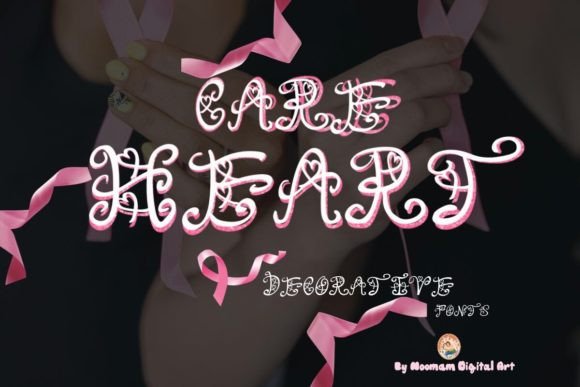
Care Heart Font: The Motivation to Fight with a Woman’s Spirit
The Care Heart font is a unique and inspiring typeface that embodies the strength and resilience of a woman’s spirit. This font is designed to motivate and empower individuals to face challenges with courage and determination. In this article, we will explore the features and benefits of the Care Heart font, and how it can be used in various design projects to convey a sense of care, compassion, and motivation.
What is Care Heart Font?
Care Heart font is a carefully crafted typeface that combines elegance and sophistication with a touch of warmth and empathy. The font features a distinctive heart-shaped design element that adds a personal and emotional touch to any text. The Care Heart font is designed to be versatile and can be used in a wide range of applications, from professional branding and marketing materials to personal projects and social media posts.
The Inspiration Behind Care Heart Font
The Care Heart font is inspired by the strength and resilience of women who face challenges with courage and determination. The font is designed to be a symbol of motivation and empowerment, encouraging individuals to fight for their goals and aspirations. The Care Heart font is a tribute to the power of the human spirit and the importance of care, compassion, and empathy in our lives.
Features of Care Heart Font
The Care Heart font features a range of unique and attractive characteristics, including:
- Unique Heart-Shaped Design Element: The Care Heart font features a distinctive heart-shaped design element that adds a personal and emotional touch to any text.
- Elegant and Sophisticated: The font has an elegant and sophisticated appearance, making it suitable for professional-looking projects such as branding designs, labels, and business cards.
- Warm and Empathetic: The Care Heart font has a warm and empathetic feel, making it perfect for designs that require a personal touch, such as social media posts, invitations, and special occasions cards.
- Versatile: The Care Heart font is highly versatile and can be used in a wide range of applications, from digital designs to print materials.
Benefits of Using Care Heart Font
The Care Heart font offers a range of benefits for designers and individuals looking for a unique and inspiring typeface. Some of the benefits of using the Care Heart font include:
- Emotional Connection: The Care Heart font helps create an emotional connection with the audience, making it perfect for designs that require a personal touch.
- Motivation and Empowerment: The font is designed to motivate and empower individuals, making it suitable for designs that require a sense of inspiration and encouragement.
- Versatility: The Care Heart font is highly versatile and can be used in a wide range of applications, from professional branding and marketing materials to personal projects and social media posts.
- Unique and Memorable: The Care Heart font is a unique and memorable typeface that can help designs stand out and leave a lasting impression.
Using Care Heart Font in Design Projects
The Care Heart font is suitable for a wide range of design projects, including:
- Branding Designs: The Care Heart font can be used in branding designs to create a sense of care and compassion.
- Labels and Packaging: The font is perfect for labels and packaging designs that require a personal touch.
- Websites and Business Cards: The Care Heart font can be used in websites and business cards to create a professional and elegant appearance.
- Social Media Posts: The font is suitable for social media posts that require a personal and emotional touch.
- Invitations and Special Occasions Cards: The Care Heart font is perfect for invitations and special occasions cards that require a sense of warmth and empathy.
Tips for Using Care Heart Font Effectively
Here are some tips for using the Care Heart font effectively in design projects:
- Use it Sparingly: Use the Care Heart font sparingly to create a sense of emphasis and importance.
- Pair it with Other Fonts: Pair the Care Heart font with other fonts to create a unique and visually appealing design.
- Experiment with Colors: Experiment with different colors to create a design that is visually appealing and effective.
- Keep it Simple: Keep the design simple and clean to ensure that the Care Heart font stands out.
The Care Heart font is a unique and inspiring typeface that embodies the strength and resilience of a woman’s spirit. The font is designed to motivate and empower individuals to face challenges with courage and determination. With its elegant and sophisticated appearance, warm and empathetic feel, and versatility, the Care Heart font is suitable for a wide range of design projects. By using the Care Heart font effectively, designers and individuals can create designs that convey a sense of care, compassion, and motivation.